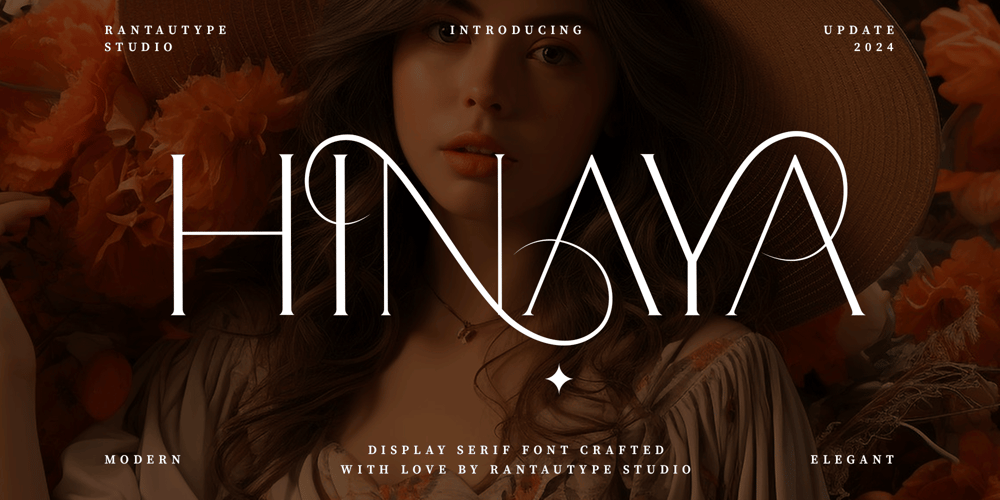
Hinaya
Hinaya font
Hinaya Font Family was designed by Yudi Pratama Chandra and published by RantauType. Hinaya contains 1 styles and family package options. Hinaya is modern serif typeface with elegant visual thin display.Hinaya is a perfectly choice for any creative endeavor, chic, lifestyle design such as logos, advertisements, watermark on photography, stationery, branding project, display and magazine, invitation, corporate brand, product design, label, business project and many other project with elegant touch.What you have: Standart Glyphs Numberial and Functional Alternate and Ligature Works on PC & Mac Simple installations Accessible in Adobe Illustrator, Adobe Photoshop, Adobe InDesign, even work on Microsoft Word. Fonts include Multilingual Character for: Afrikaans, Albanian, Asu, Basque, Bemba, Bena, Breton, Chiga, Cornish, Dutch, English, Estonian, Filipino, Finnish, Friulian, Galician, Gusii, Indonesian, Irish, Italian, Kabuverdianu, Kalenjin, Kinyarwanda, Luo, Luxembourgish, Luyia, Machame, Makhuwa-Meetto, Makonde, Malagasy, Manx, Morisyen, North, Ndebele, Nyankole, Oromo, Portuguese, Quechua, Romansh, Rombo, Rundi, Rwa, Samburu, Sango, Sangu, Scottish, Gaelic, Sena, Shambala, Shona, Soga, Somali, Spanish, Swahili, Swedish, Swiss, German.Thank you for your purchase!Hope you enjoy with our font!